Behind the Scenes in Typeface Creation: Visual Adjustment 01: “Area of Space”
In this series, I would like to introduce visual adjustments for typeface creation.
For this, I would like to introduce an example of the character “田.”
As a rough rule in typeface creation, adjustment is made to have a “wide bottom” and “wide right side.” This comes in consideration of the optical illusion that the human eye perceives expansion in the top part rather than the bottom part, and the left side rather than the right side.
I would like to explain this with the character “田,” which is simple in structure.
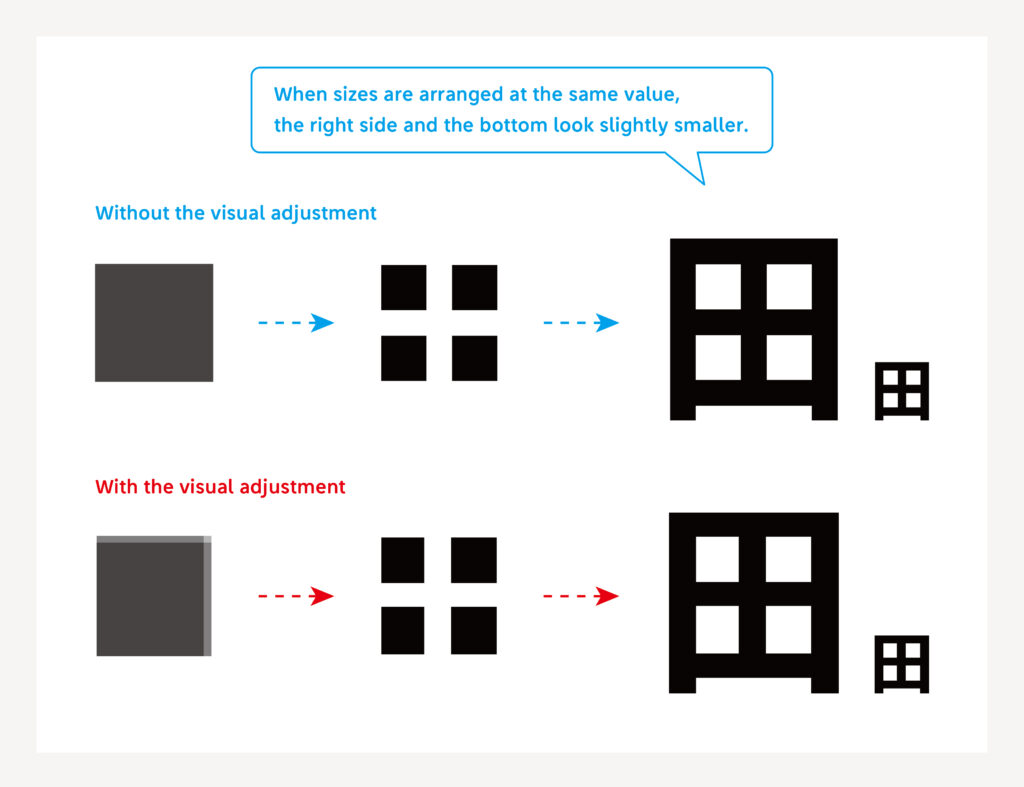
The kanji character “田” is bilaterally symmetrical. However, the bottom and the right side are created as intentionally larger, so that it looks like the same size when read. When the space inside the character is created at the completely same size, the right side and the bottom look a bit narrower – this is the reason.
Presence/absence of this adjustment is a difference of approximately 1% in the character size. However, this slight difference can change the impression when looking at the character.
There are other visual adjustment points in typeface creation, including the thickness and length of line. In this series, I would like to introduce these visual adjustment points.